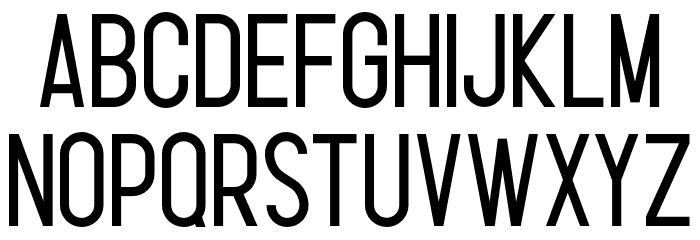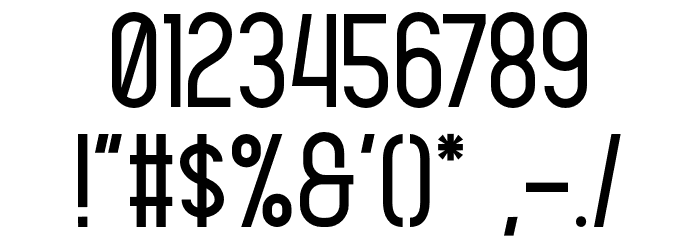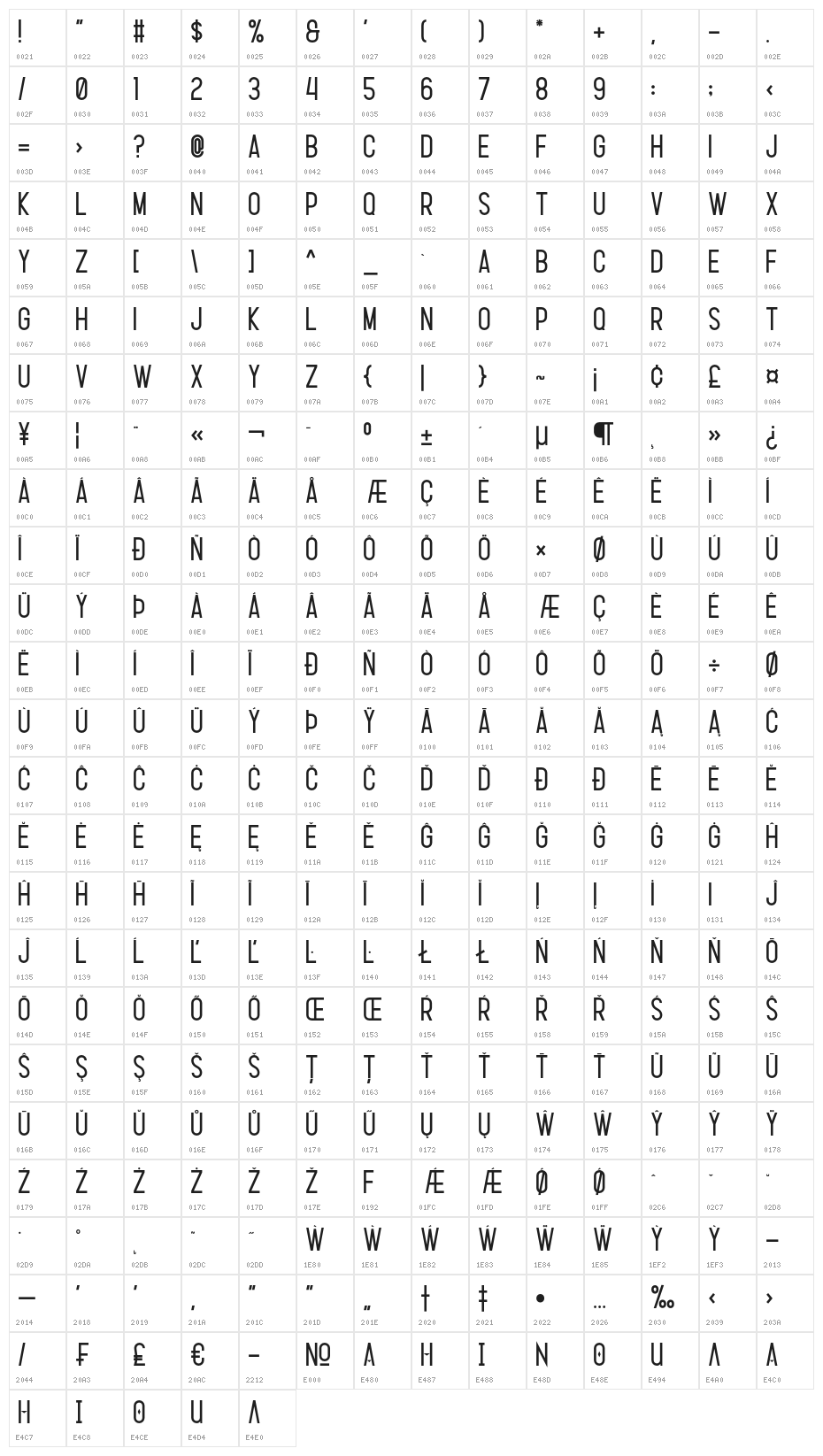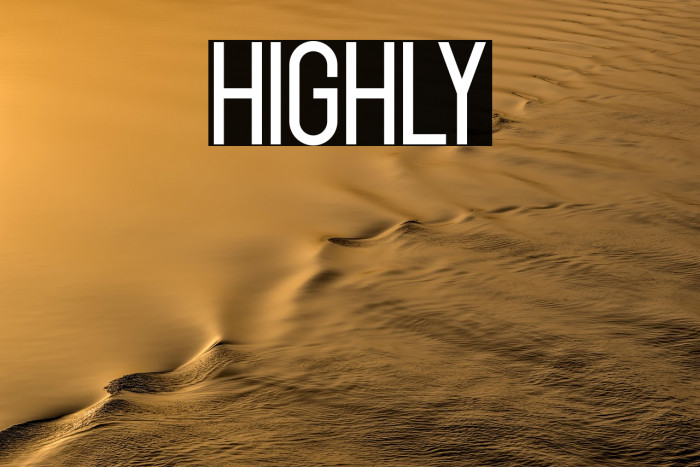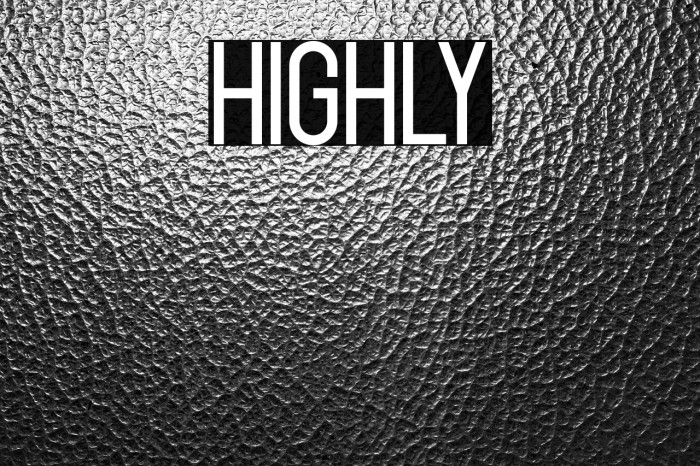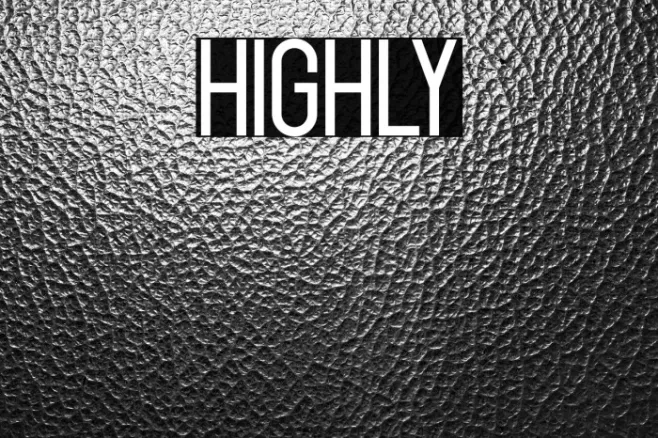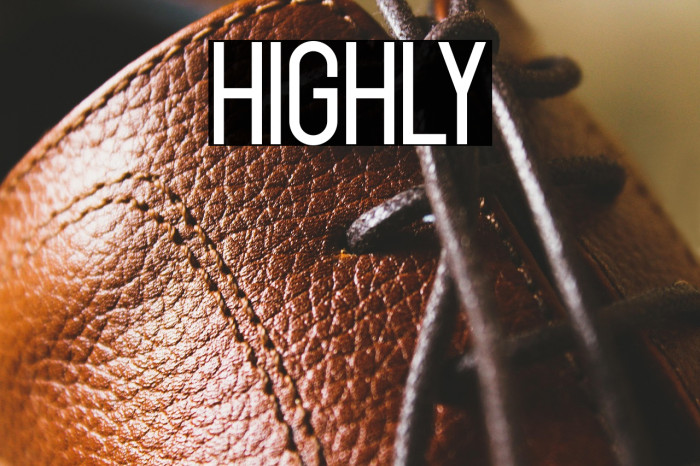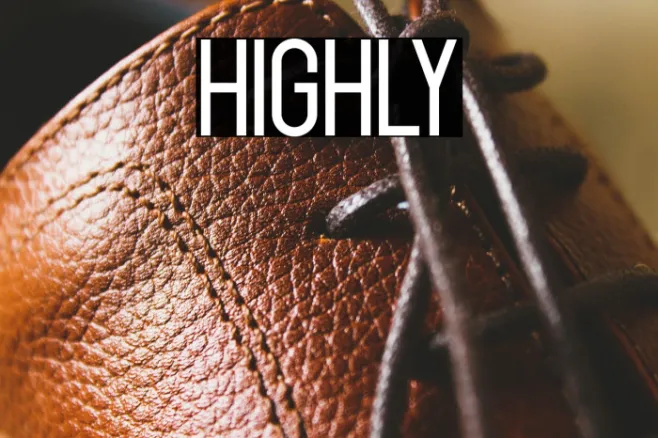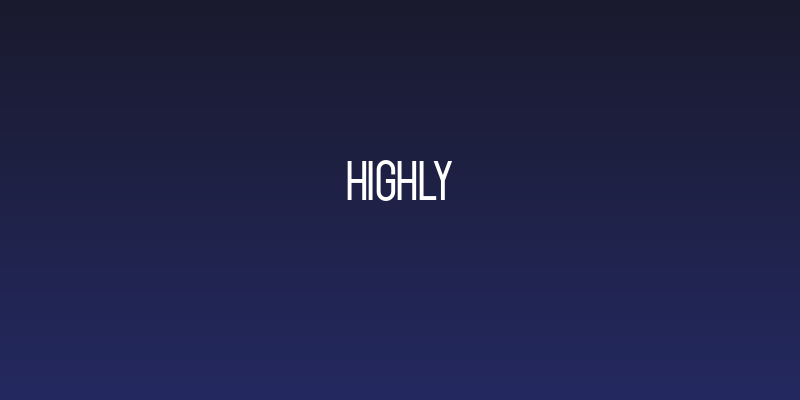
Highly Font
This font features a clean, modern sans-serif design with a geometric structure. The characters are tall and narrow, giving it a condensed appearance. The uniform stroke width throughout the characters provides a consistent and sleek look, making it highly legible. The uppercase and lowercase letters maintain a harmonious balance, while the numerals and special characters are designed to match the overall aesthetic. The font's simplicity and clarity make it versatile for various design applications.
A modern, condensed sans-serif font with a clean and geometric design.
- Proposed Projects: Ideal for branding, advertising, headlines, and editorial design where a modern and sleek appearance is desired.
- Use Case: Headlines, Logos, Branding